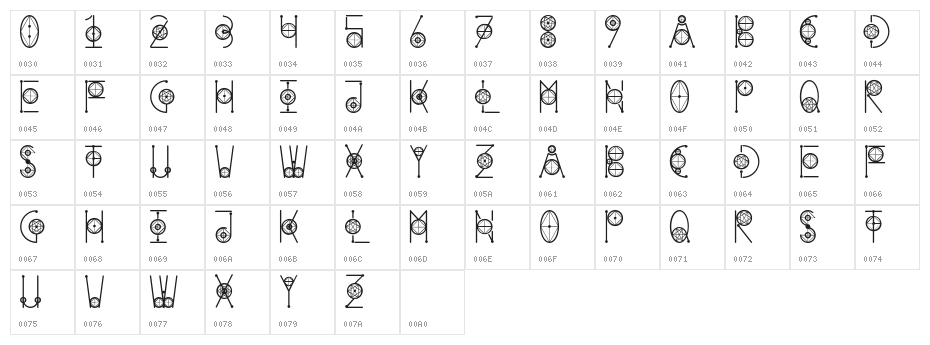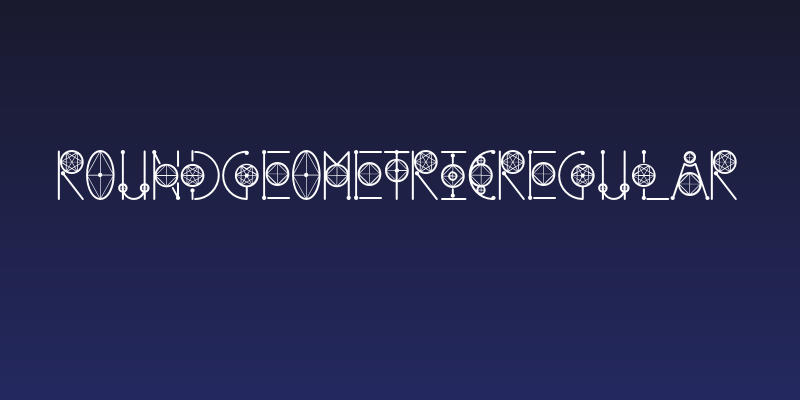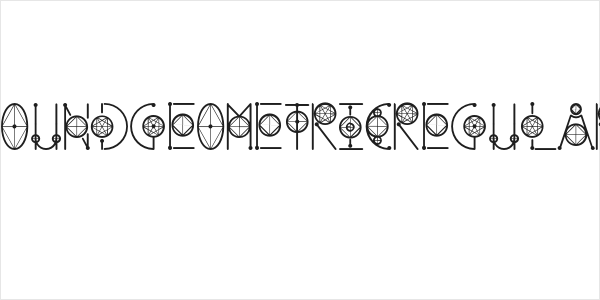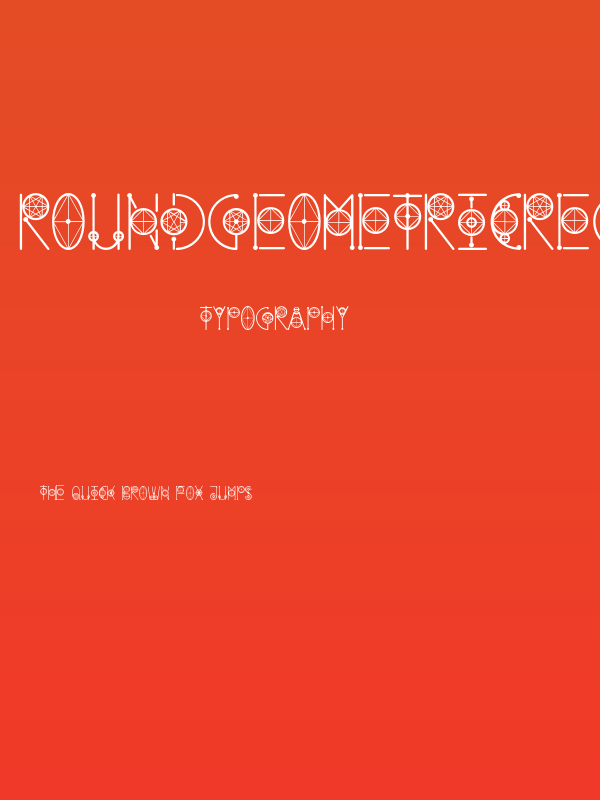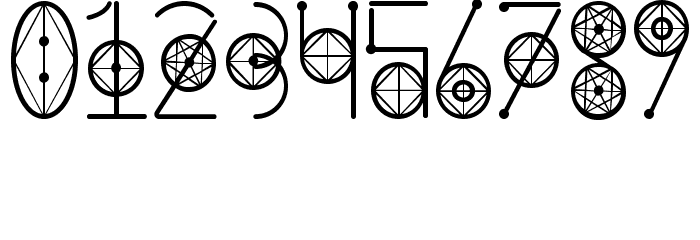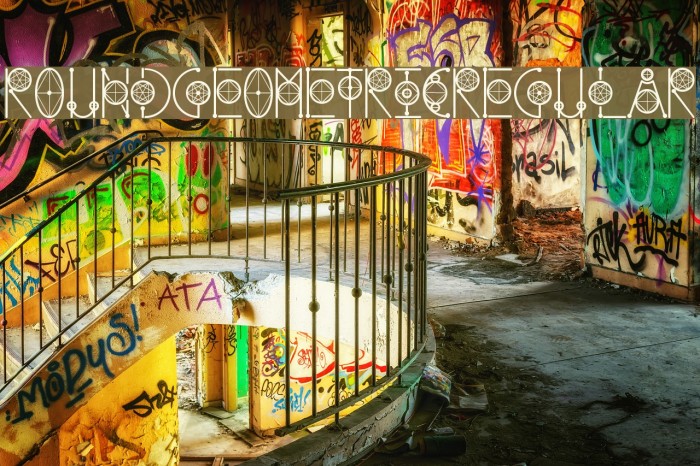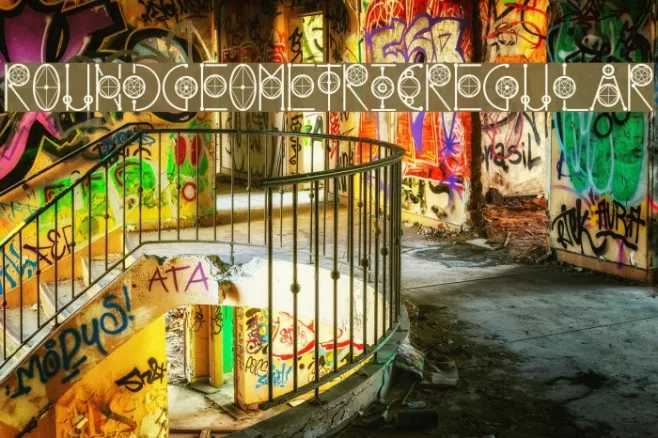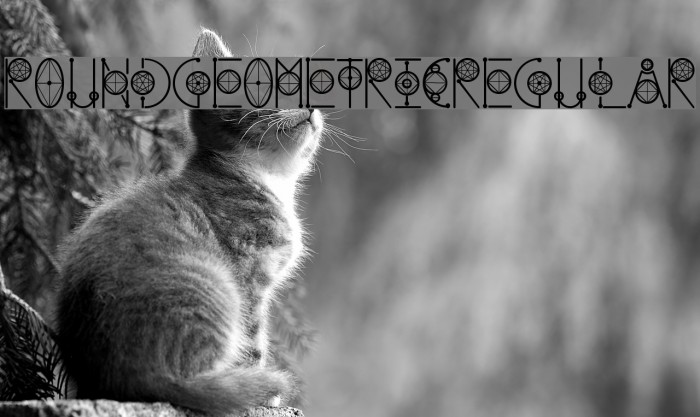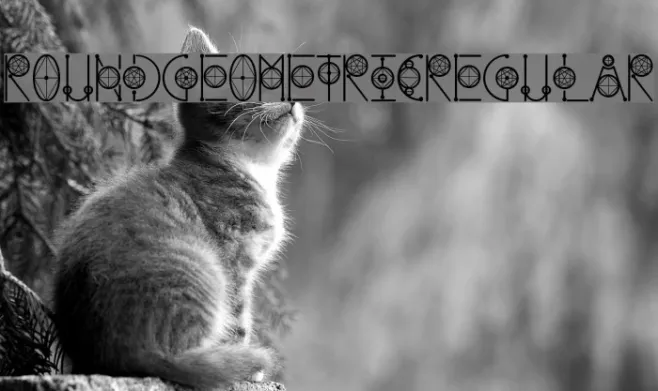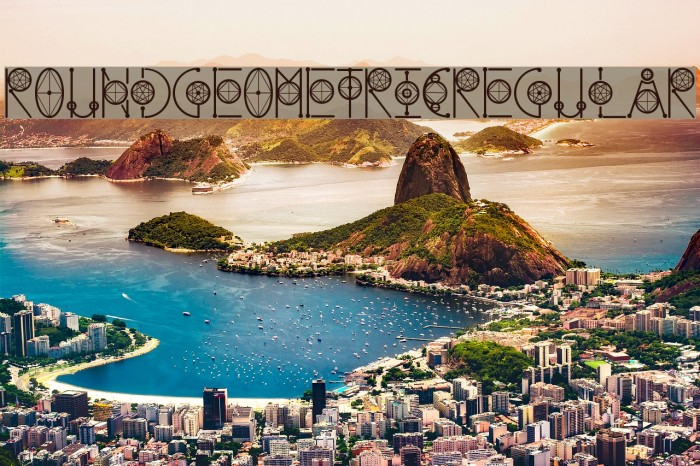
RoundGeometricRegular Font
RoundGeometricRegular Description
This font features a unique blend of geometric shapes and circular motifs, creating a visually striking and modern appearance. Each character is constructed with a combination of lines and circles, often incorporating intricate patterns within the circular elements. The overall design is highly decorative, with a focus on symmetry and balance, making it stand out in any design project. The uppercase and lowercase letters maintain a consistent style, while the numerals and special characters follow the same geometric theme, ensuring a cohesive look across all text elements.
| Proposed Projects | Ideal for use in branding, logos, posters, and any project requiring a bold, artistic touch. |